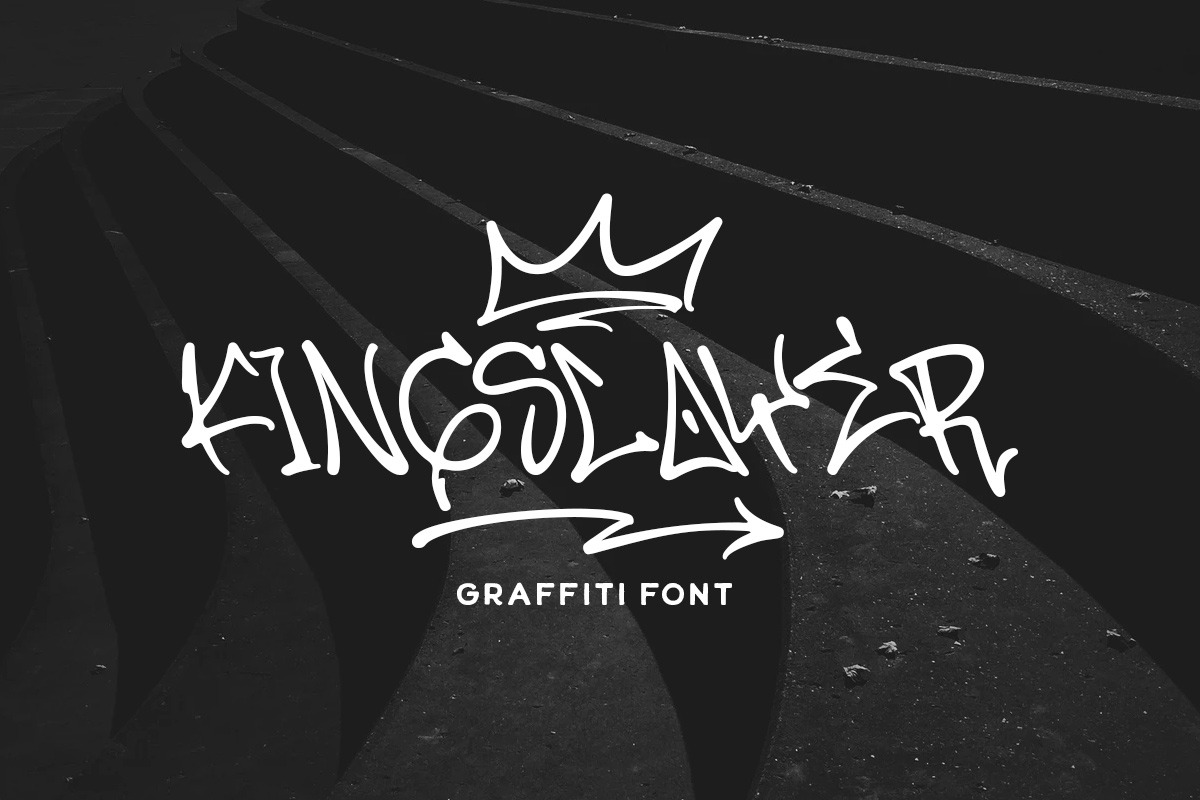
Introducing, Kingslayer. Kingslayer is a graffiti font inspired with unique graffiti letterform to that will make your design standout! Kingslayer will fit perfectly for branding design, packaging, headline, graffiti poster, etc.